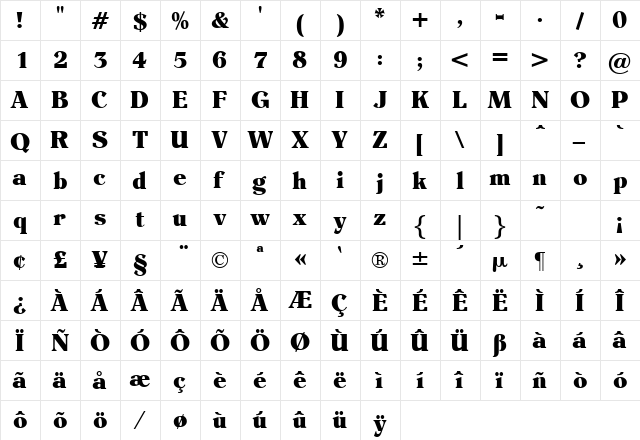
Eider Regular Font Preview
Eider Regular
Design Context for Eider Typeface
Eider takes a measured approach to typography — its balanced proportions and neutral character make it a reliable workhorse for both digital and print work.